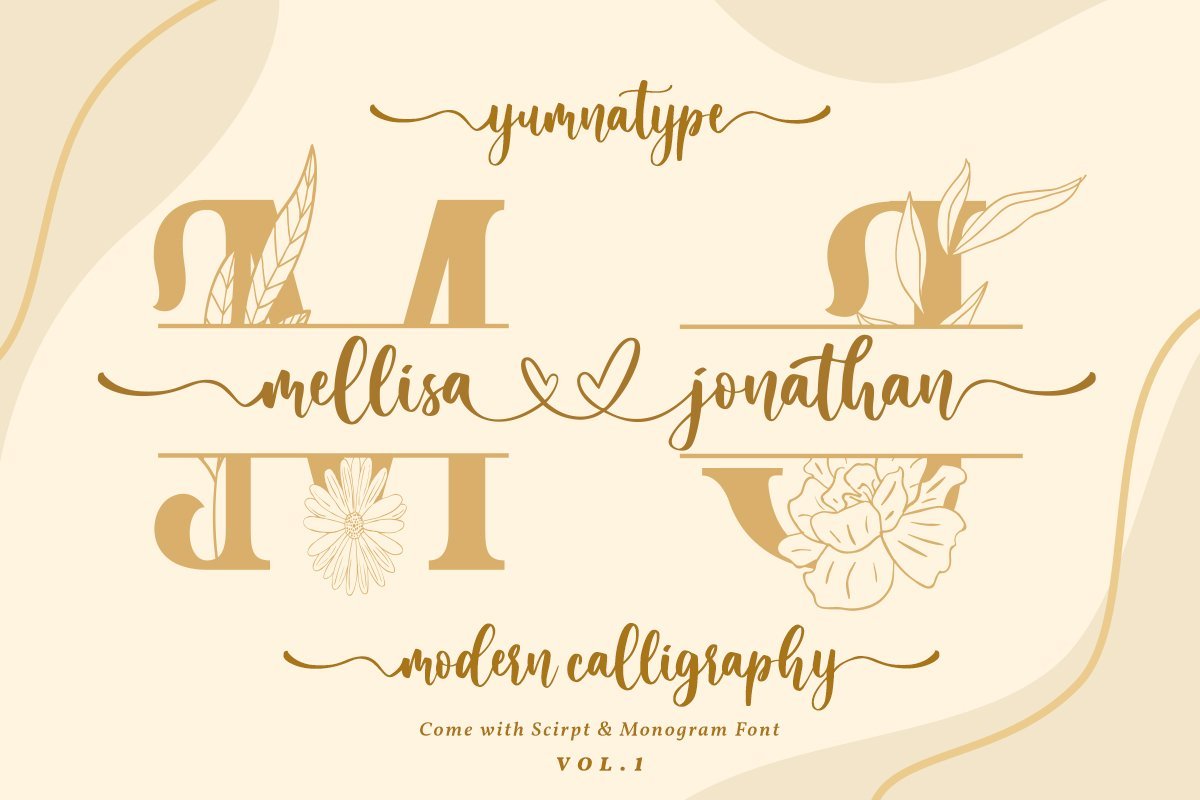
About Mellisa Jonathan (Script & Split Monogram Font)
Say hello to Mellisa Jonathan Script. Mellisa Jonathan is a beautiful wedding font. It brings a beautiful and modern typeface that best used for weddings, branding, logotype, and quotes.: Includes : – Mellisa Jonathan – Mellisa Jonathan Split Monogram Features : Ligatures Beautiful Alternates + Swashes PUA Encoded Multilingual Support Numerals and Punctuation Beginning Swash and Ending Swashes (a-z) Easy Uses Thank You for visiting our shop Have a nice day !! Yumna Type-